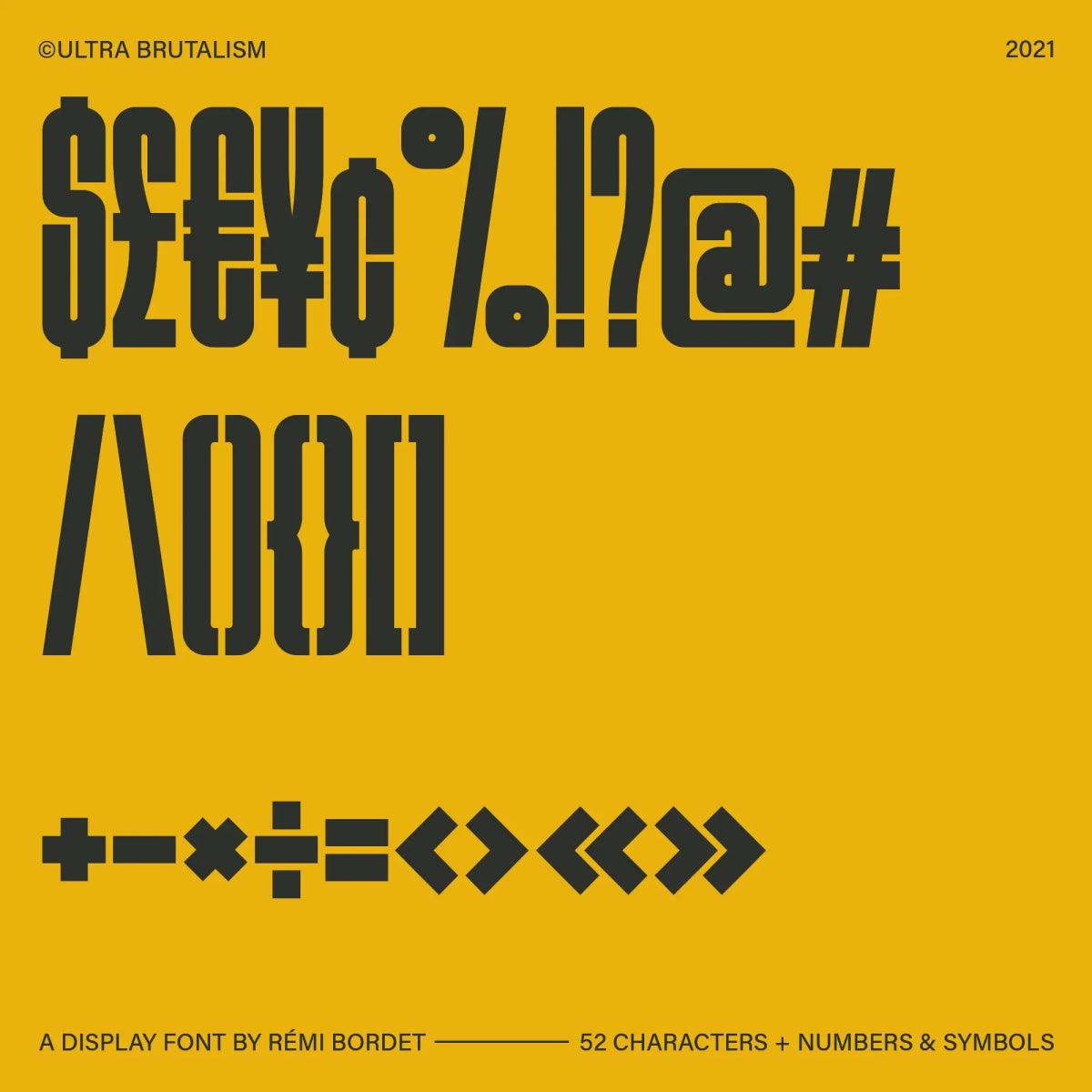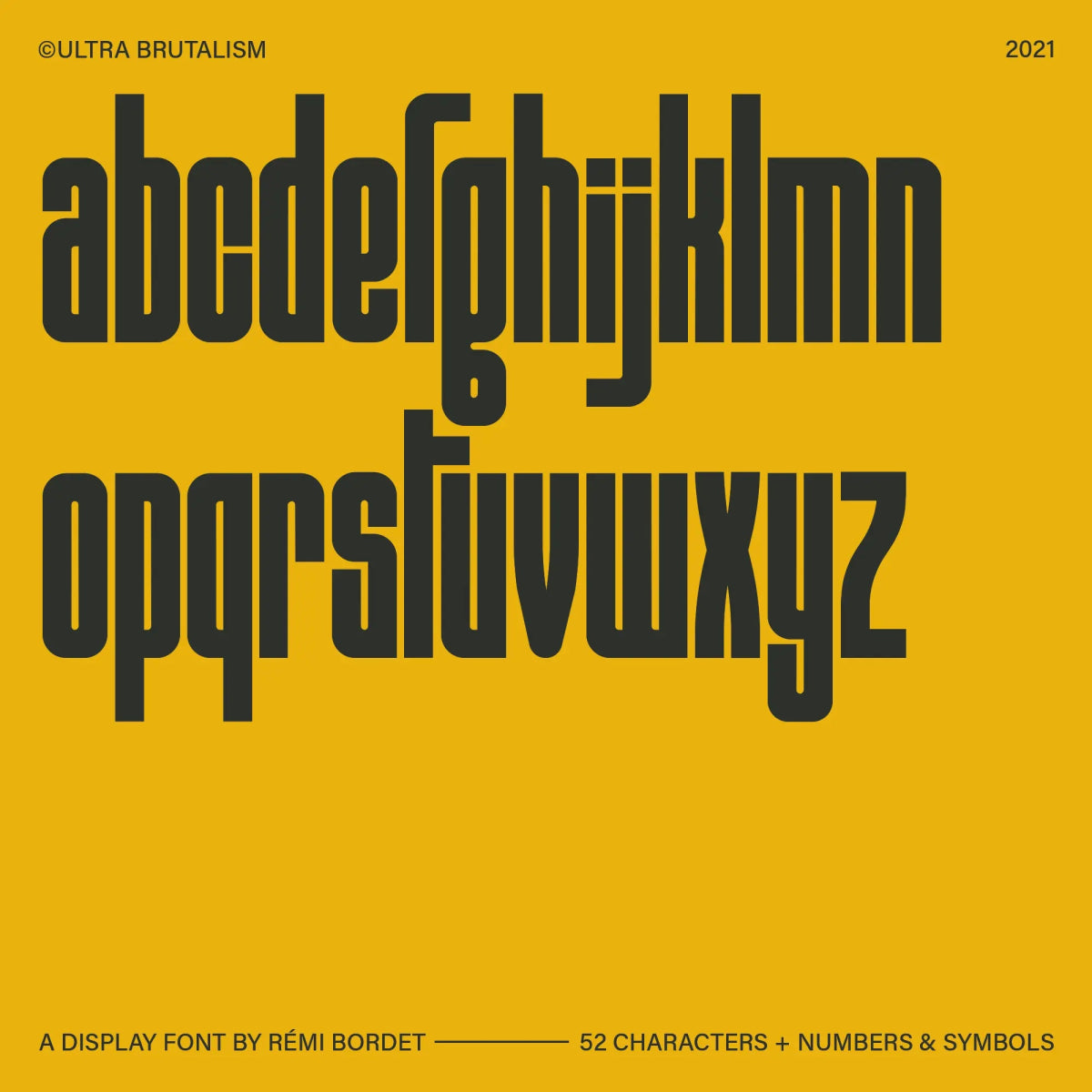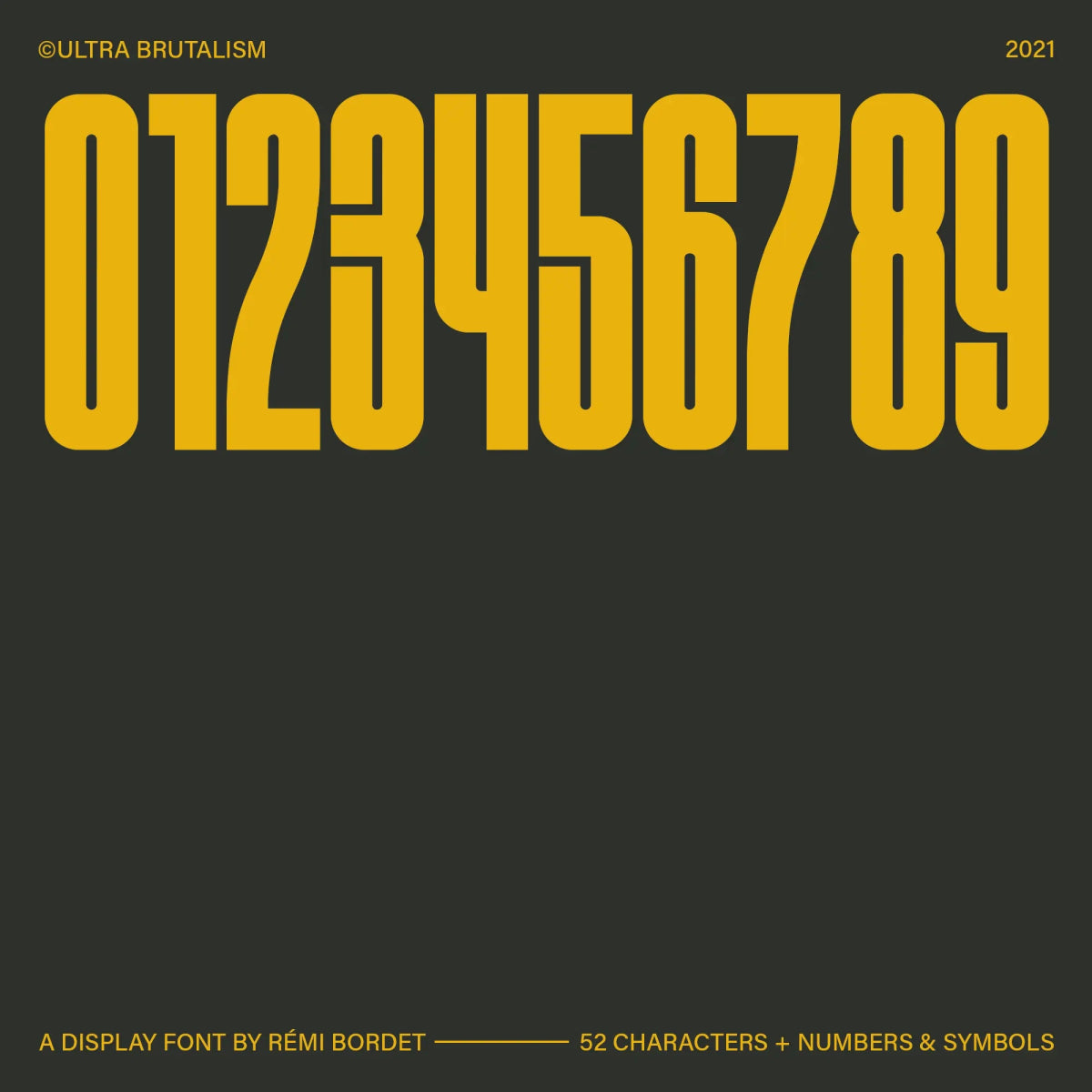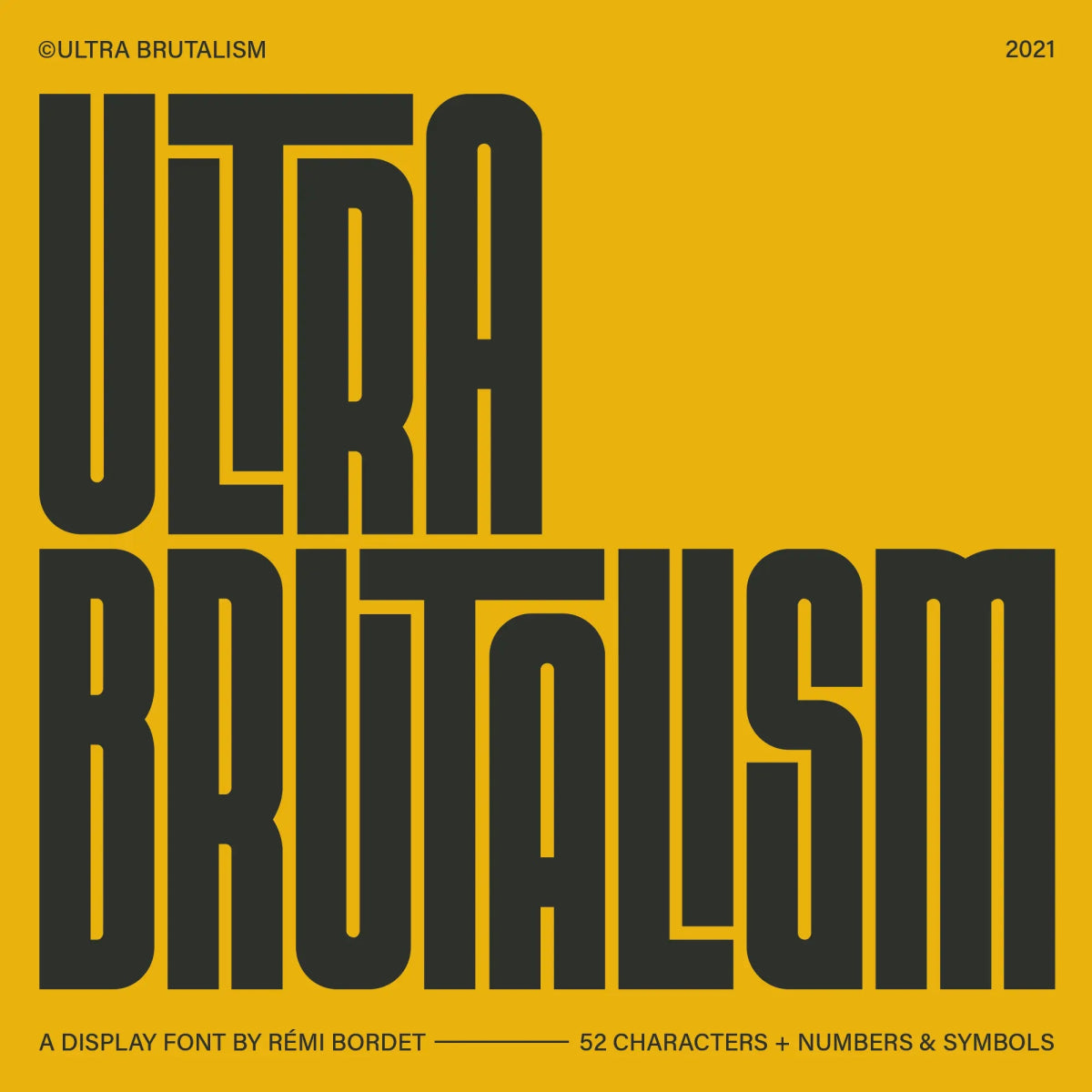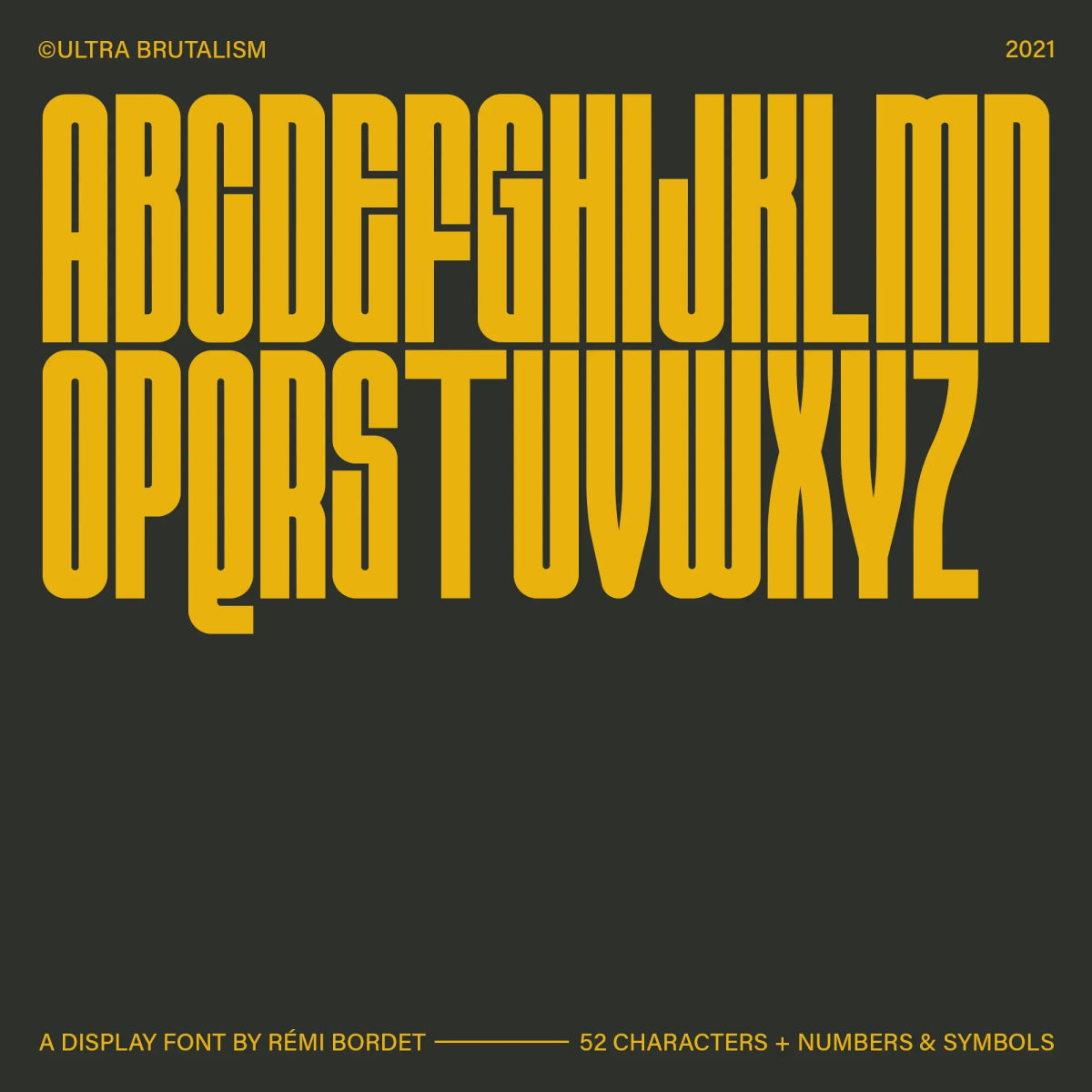
Ultra Brutalism Display Font
by Rémi Bordet
Ultra Brutalism is a heavyweight display font that embodies the raw power and unapologetic structure of brutalist design. With towering letterforms and rigid geometric spacing, it’s built to dominate posters, zines, album covers, and statement branding.
• Full uppercase and lowercase A-Z alphabet
• Full set of numbers 0-9
• Symbols & punctuation
Rémi Bordet
Rémi Bordet is a french graphic and type designer and artist who creates bold, minimalist posters combining impactful imagery and typography. His work highlights contradictions, both aesthetically and symbolically speaking, through stylistic visual metaphors that blend brutalist aesthetics with emotional depth.